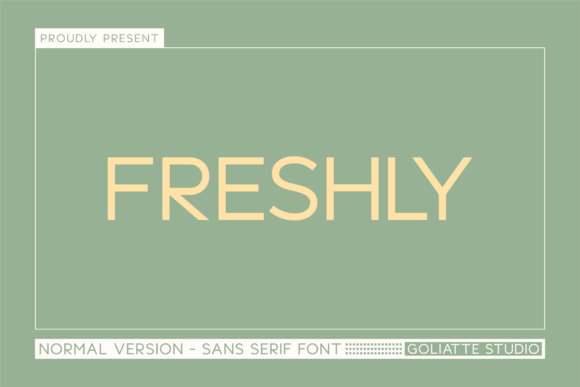
Introducing Freshly Font: A Modern Sans Serif Typeface for the Bold and Ambitious
In the world of typography, fonts play a crucial role in conveying messages, expressing emotions, and creating lasting impressions. For designers, entrepreneurs, and brands seeking to make a statement, a well-crafted font can be a game-changer. This is where Freshly Font comes into play – a bold, all-caps sans serif typeface designed to exude strength, authority, and professionalism.
Design and Aesthetic
Freshly Font boasts a clean, minimalist aesthetic that is perfect for modern designers seeking to create a lasting impact. Its strong, geometric structure ensures versatility, making it suitable for a wide range of applications, from digital interfaces to high-end branding. The all-caps design emphasizes clarity and readability, making it ideal for headlines, posters, and anywhere you need your message to stand out.
The font’s bold, clean lines create a confident and professional look, perfect for projects that require a sense of sophistication and elegance. Whether you’re designing a logo, website, or print material, Freshly Font makes a statement with its sharp, crisp edges.
Key Features
- All-caps design for maximum impact and emphasis on clarity and readability
- Modern, minimalist style with a focus on readability and versatility
- Bold, clean lines for a confident and professional look
- Ideal for branding, logos, packaging, and digital design
- Perfect for both large-scale headlines and smaller text blocks
Who is Freshly Font for?
Freshly Font is perfect for brands, agencies, and designers looking to create a modern, authoritative identity. Its versatility and impact make it especially suitable for:
- Tech companies seeking to convey innovation and sophistication
- Corporate branding projects where style and readability are paramount
- Luxury design projects where elegance and refinement are essential
The Benefits of Using Freshly Font
By incorporating Freshly Font into your design projects, you can:
- Elevate your brand’s visual identity with a modern, authoritative typeface
- Improve readability and ensure your message stands out
- Create a lasting impression with a bold, confident, and professional look
- Enhance your design’s versatility with a font suitable for various applications
Tips for Using Freshly Font Effectively
To get the most out of Freshly Font, consider the following tips:
- Use it sparingly to create emphasis and draw attention to key messages
- Pair it with complementary fonts to create visual interest and contrast
- Experiment with different sizes and colors to add depth and hierarchy to your design
- Consider its versatility and use it across various design projects and applications
Freshly Font is a powerful tool for designers, entrepreneurs, and brands seeking to make a statement. Its bold, all-caps sans serif design, clean lines, and minimalist aesthetic make it perfect for projects that require a sense of professionalism and impact. With its versatility, readability, and confidence-inspiring look, Freshly Font is an excellent choice for anyone looking to elevate their design and create a lasting impression.
Get Ready to Make an Impression with Freshly Font